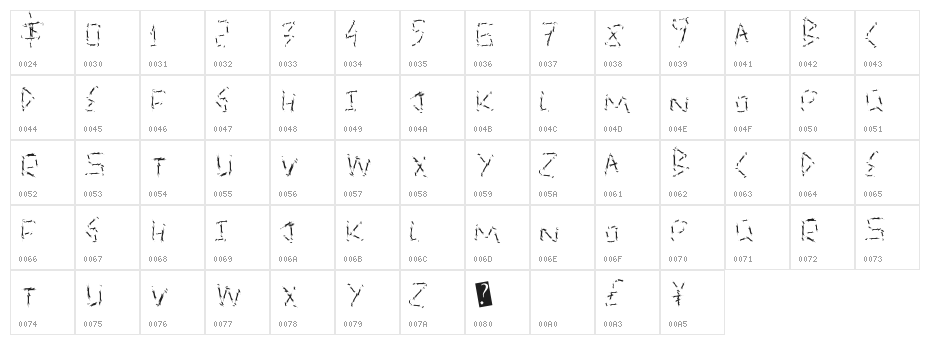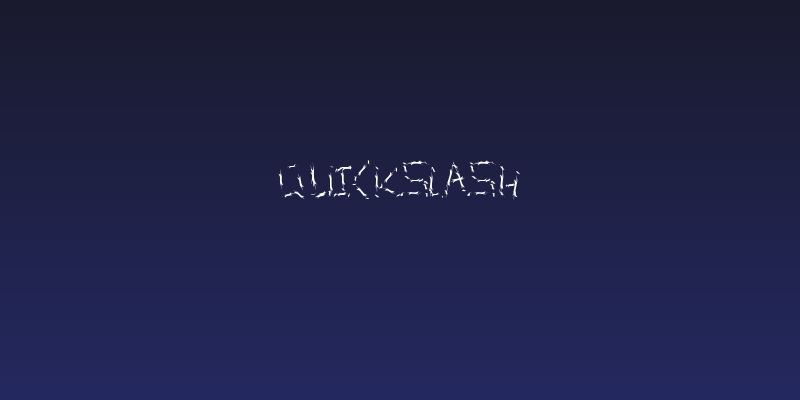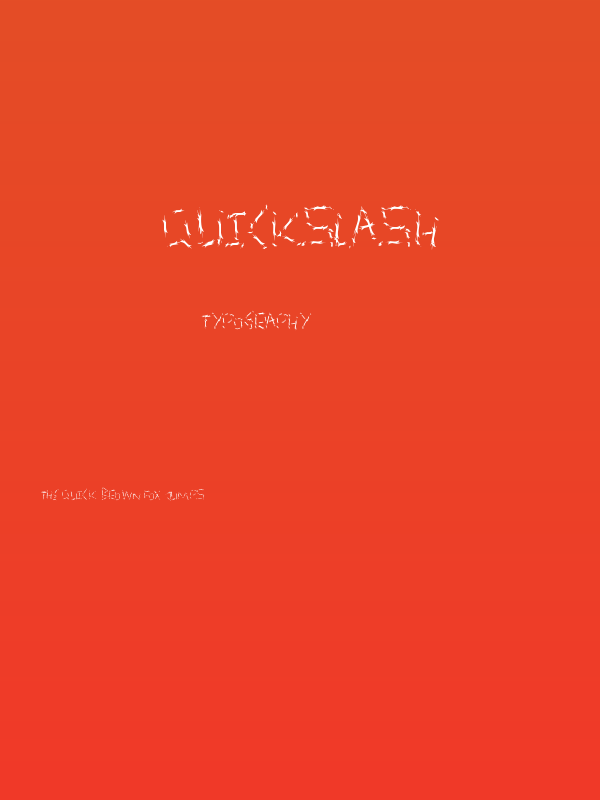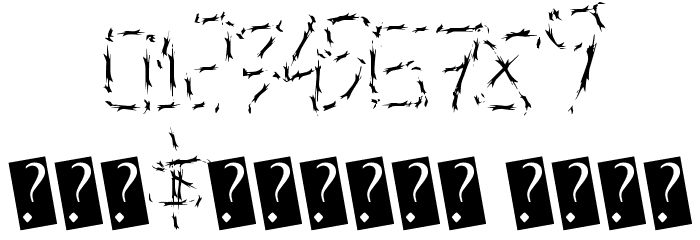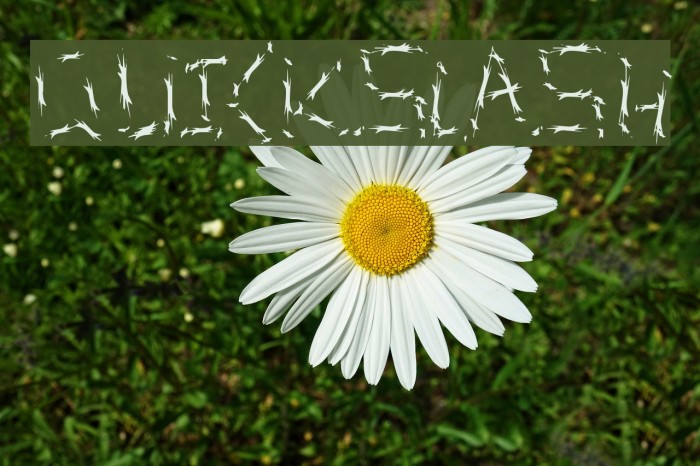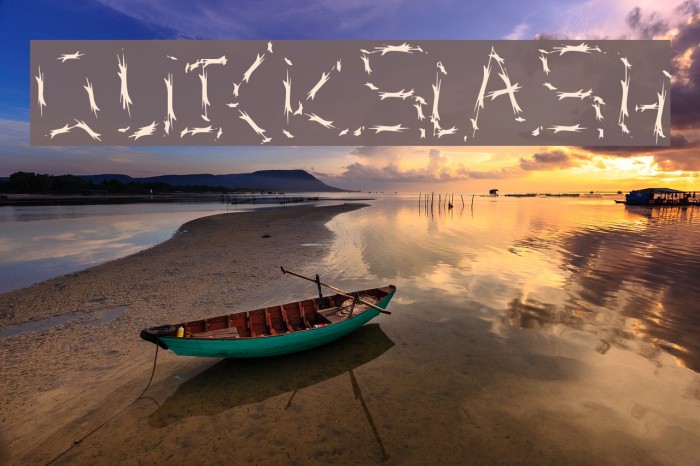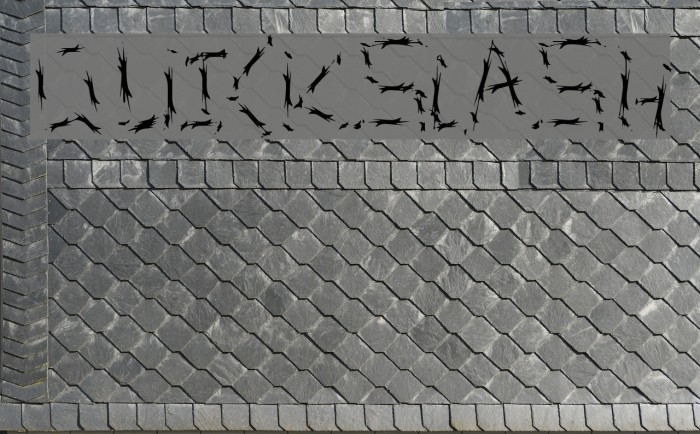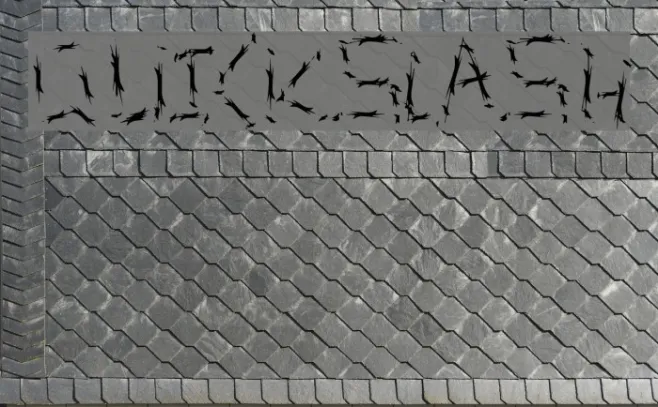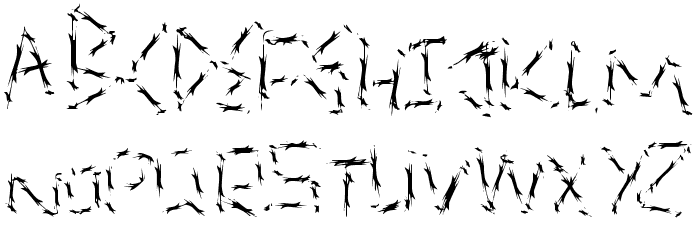
QuickSlash Font
QuickSlash Description
This font features a unique, edgy design with characters formed by sharp, thorn-like strokes. The letters and numbers are constructed with an irregular, jagged appearance, giving a sense of movement and intensity. The style is reminiscent of barbed wire or shattered glass, creating a visually striking and somewhat aggressive aesthetic. Each character maintains a consistent height, but the irregularities in the strokes add a dynamic and chaotic feel. The font is highly decorative, making it suitable for projects that require a bold and unconventional look.
| Overall Style | Modern, Edgy |
| Proposed Projects | Ideal for album covers, horror-themed posters, edgy branding, or any project needing a bold, unconventional look. |